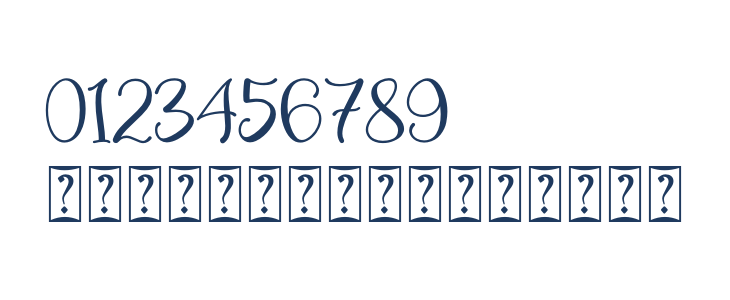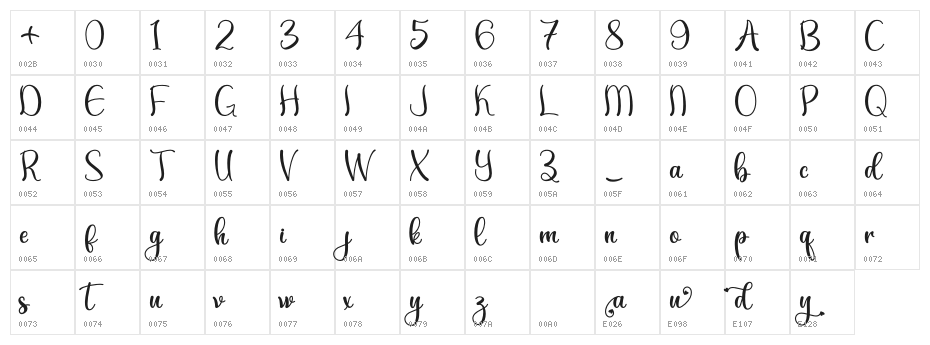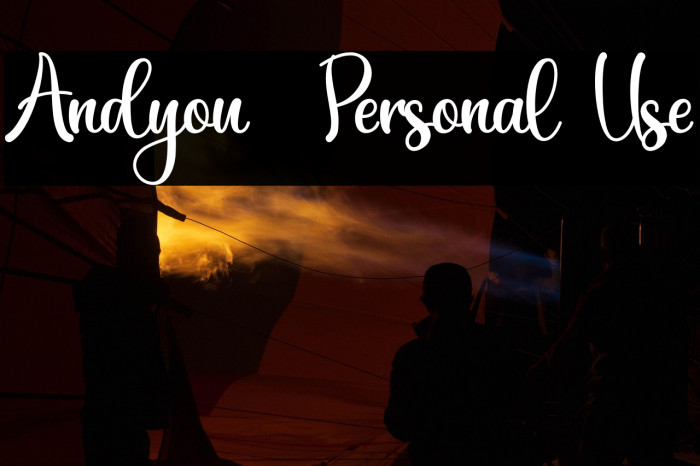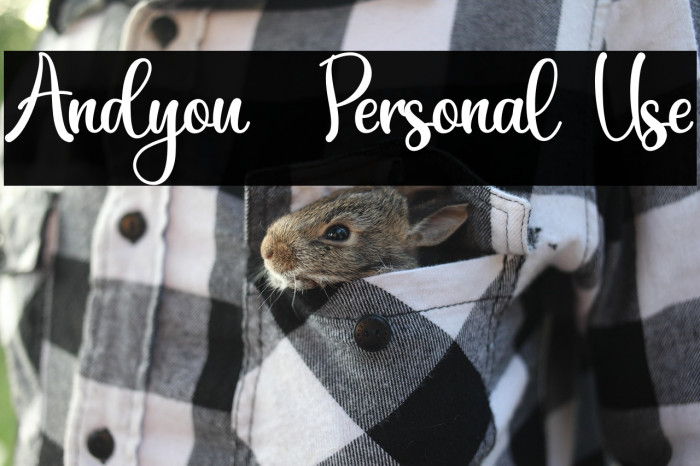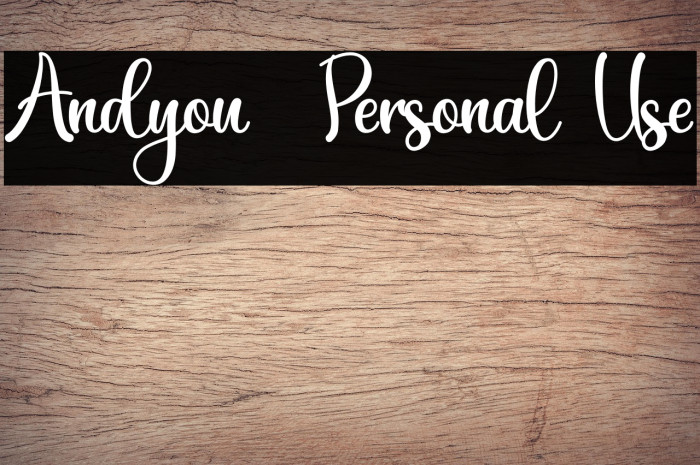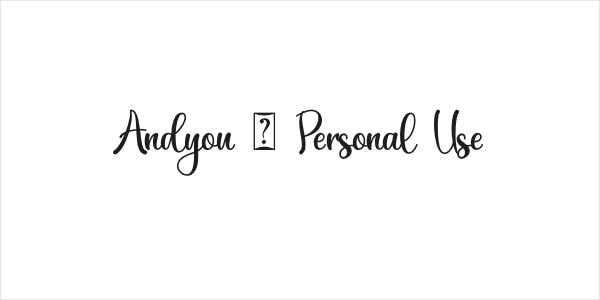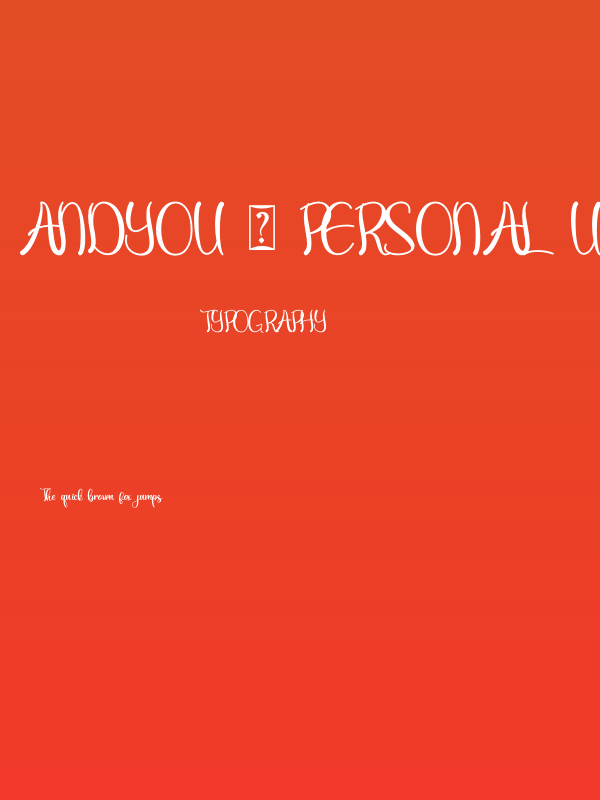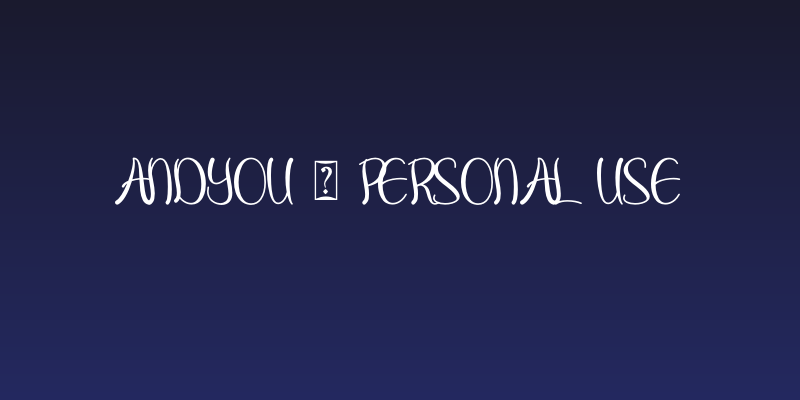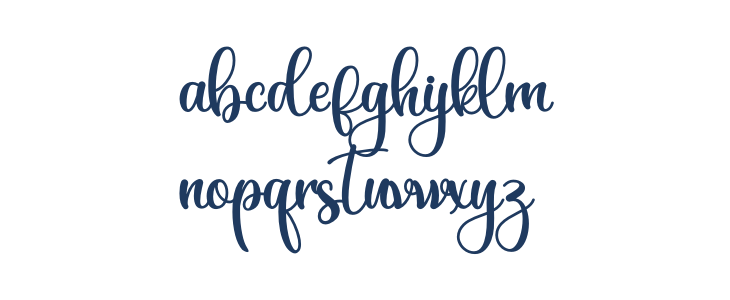
Andyou - Personal Use Font
Andyou - Personal Use Description
This font features a playful and whimsical script style with a handwritten appearance. The letters are characterized by their flowing, cursive forms and varying stroke widths, giving it a dynamic and lively feel. The uppercase letters are bold and prominent, while the lowercase letters maintain a consistent, smooth flow. Numbers are equally stylized, matching the overall aesthetic of the alphabet. The font's unique charm is enhanced by its decorative elements, making it suitable for creative and artistic projects. The special characters are not clearly defined, adding a mysterious touch to the font's presentation.